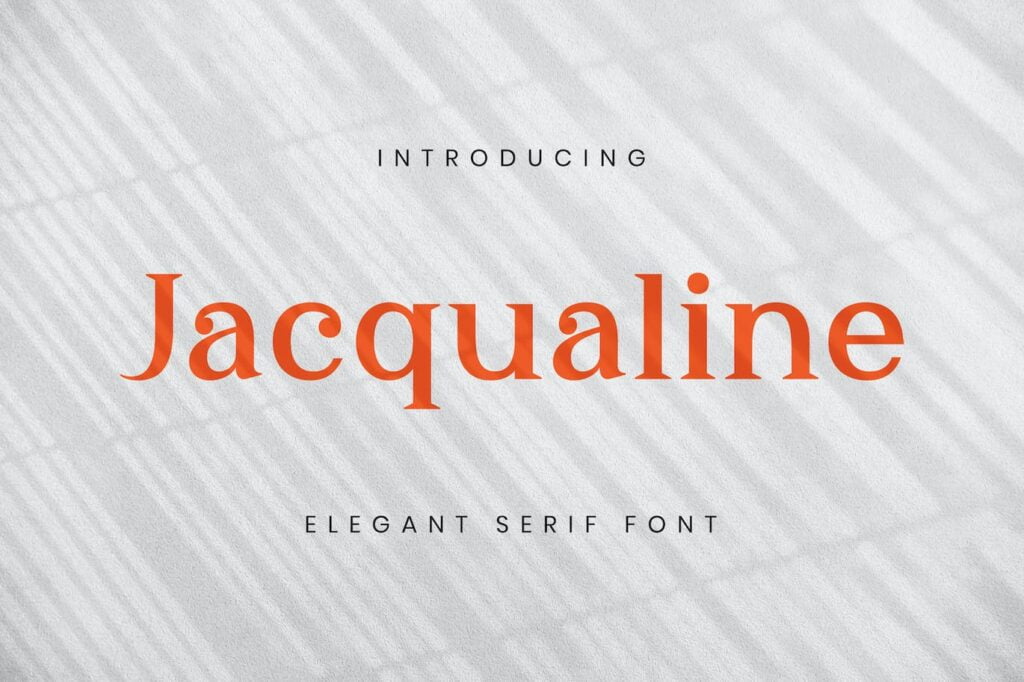
Jacqualine Font
Jacqualine professional serif font look with simple, clean and visual elegance with smooth curves and beautiful ligatures. A very versatile font that works in both large and small sizes.
This font is suitable for a wide variety of projects such as headlines, logos, labels, branding projects, magazines, homeware designs, product packaging, mugs, quotes, posters and more.
Jacqualine Elegant Serif Font